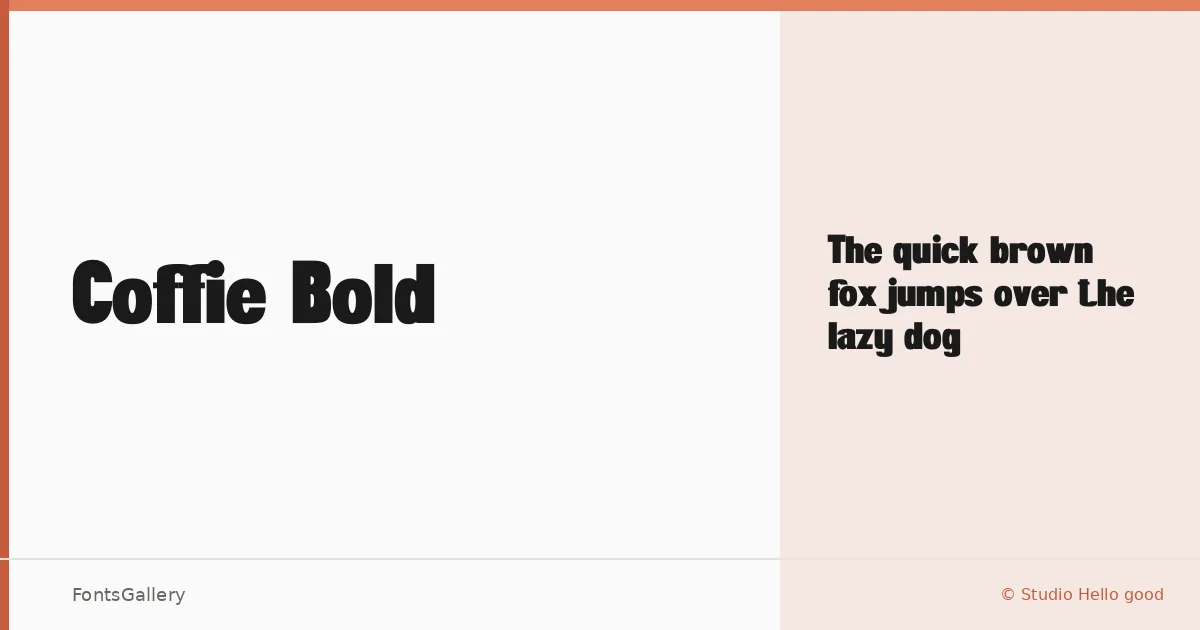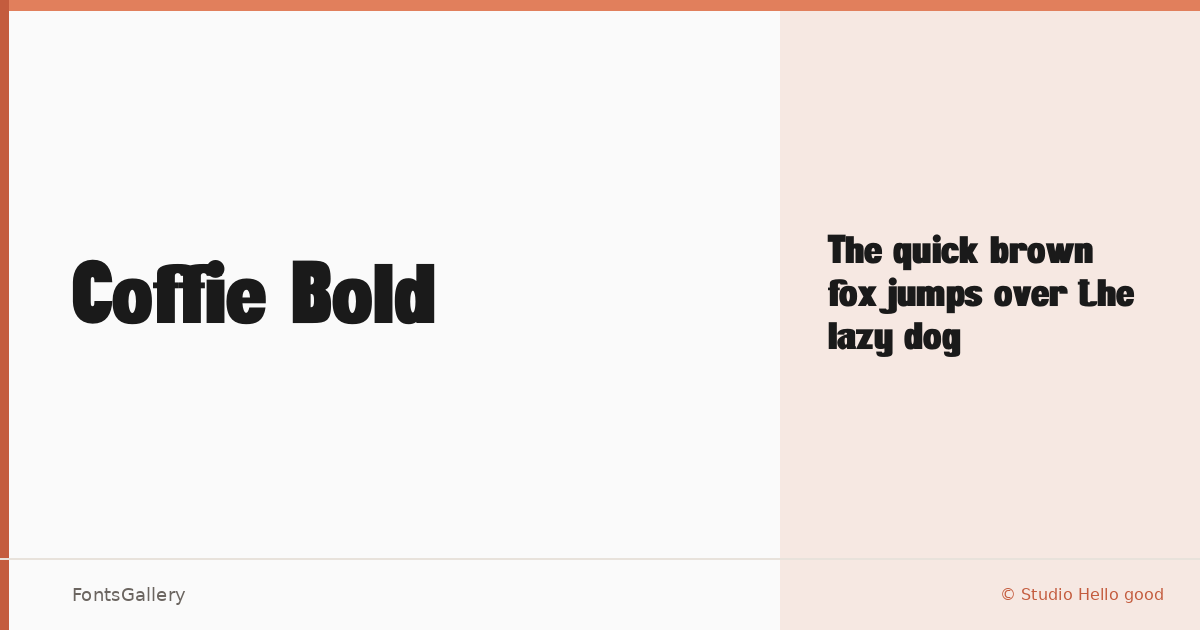
About Coffie Bold Font
There is a deliberate heaviness to these letterforms — a confident, planted weight that announces itself without apology. Rachmad bagus fatchi, working under Studio Hello good, has drawn a single-weight display face that leans into bold, modern strokes with a professional composure rarely found in purely decorative display work.
This is a display face built for impact: one cut, Regular, delivered in OTF format, and designed to carry Latin text at large sizes where every curve and terminal is visible. The proportions feel calibrated for headlines rather than body copy — broad, assured, and structured enough to read as both bold and composed. The mood sits at the intersection of modern confidence and professional restraint, which keeps it out of novelty territory.
The face earns its place on posters, logo lockups, branding systems, and T-shirt graphics wherever strong Latin headlines need to hold attention. For pairing, its weight and personality balance well against the neutrality of Helvetica or Aileron, and it can hold its own alongside more expressive companions like AQUA, Abrade, or Aranea when contrast is the goal.